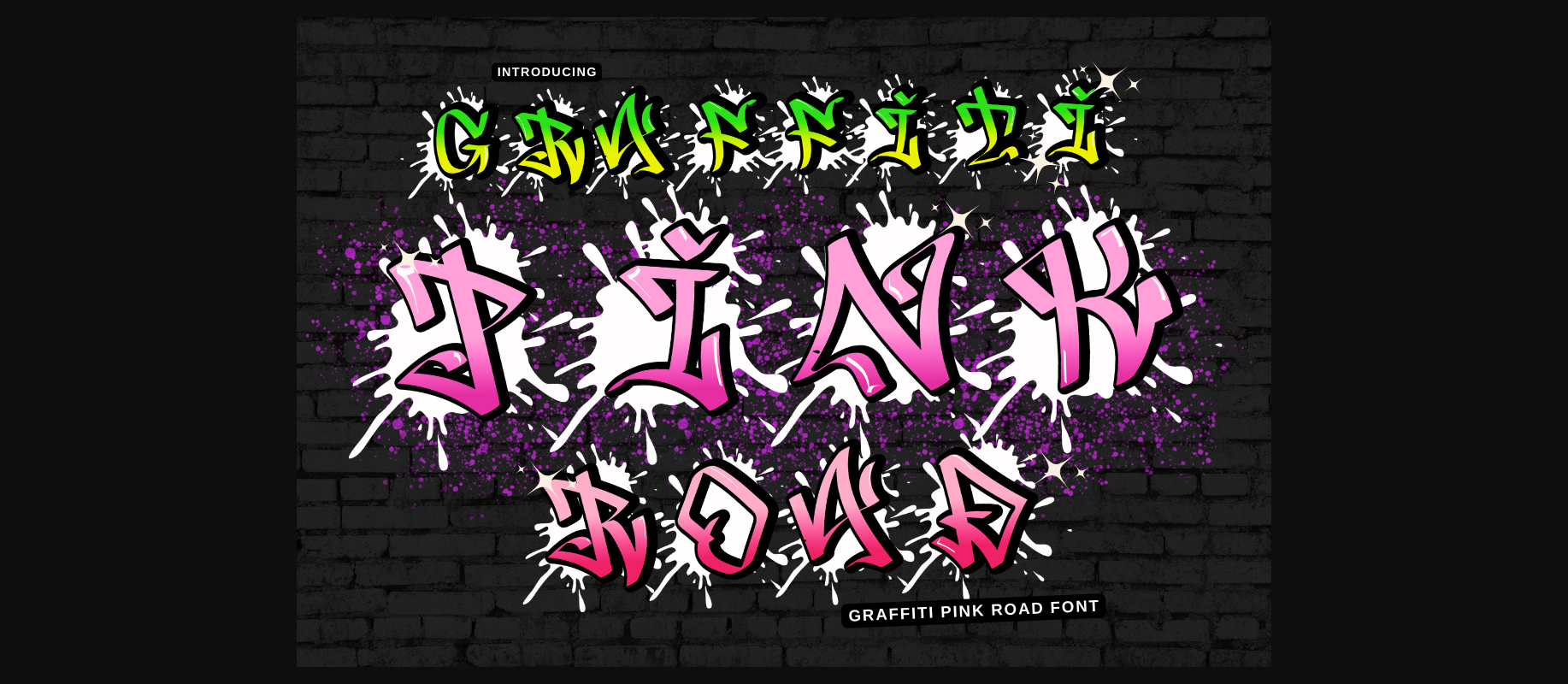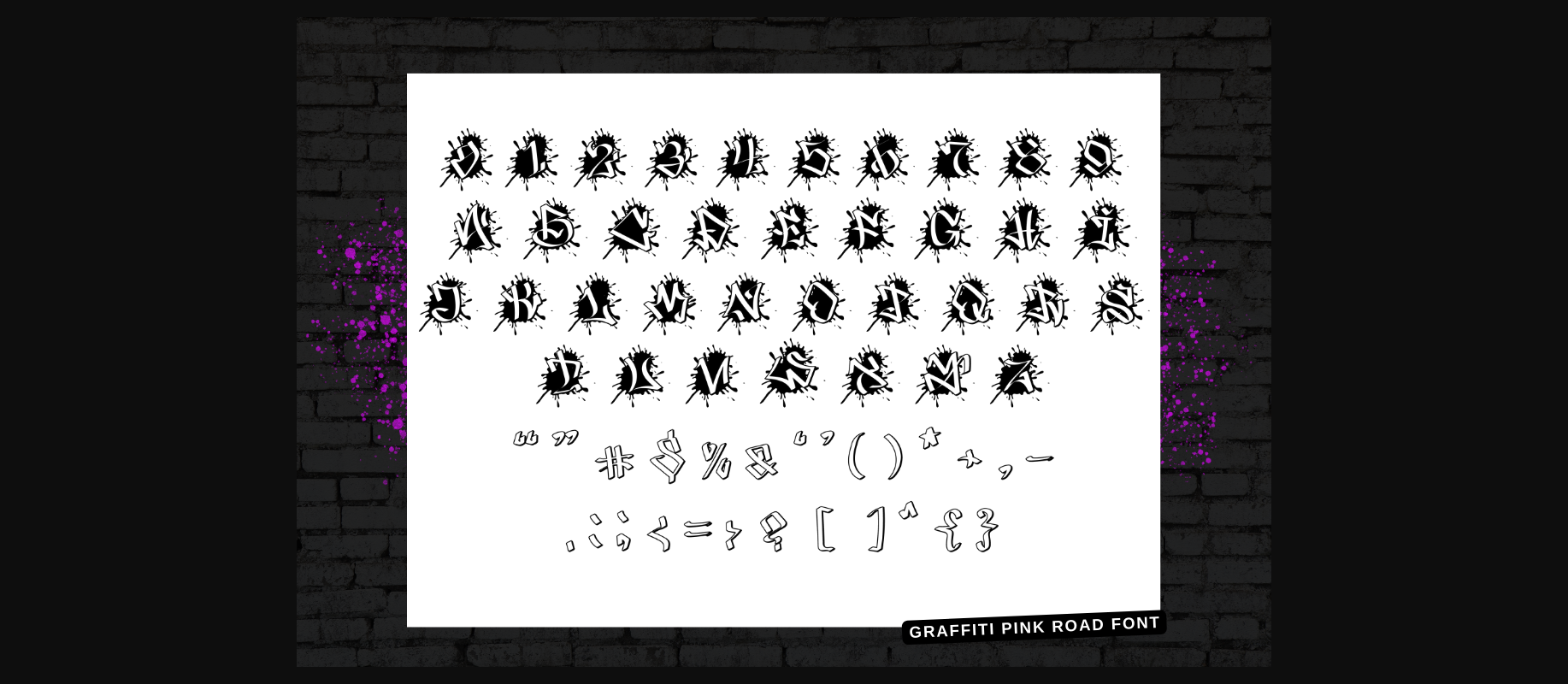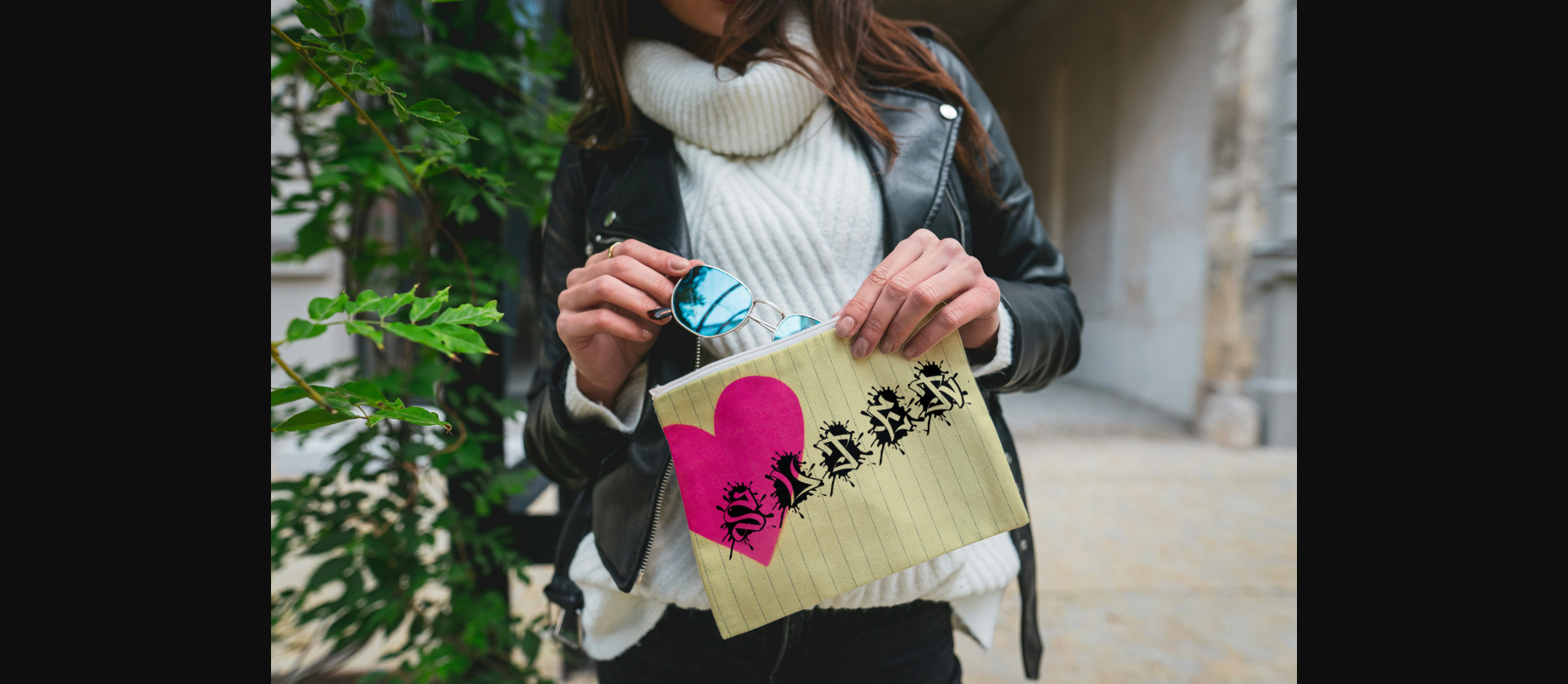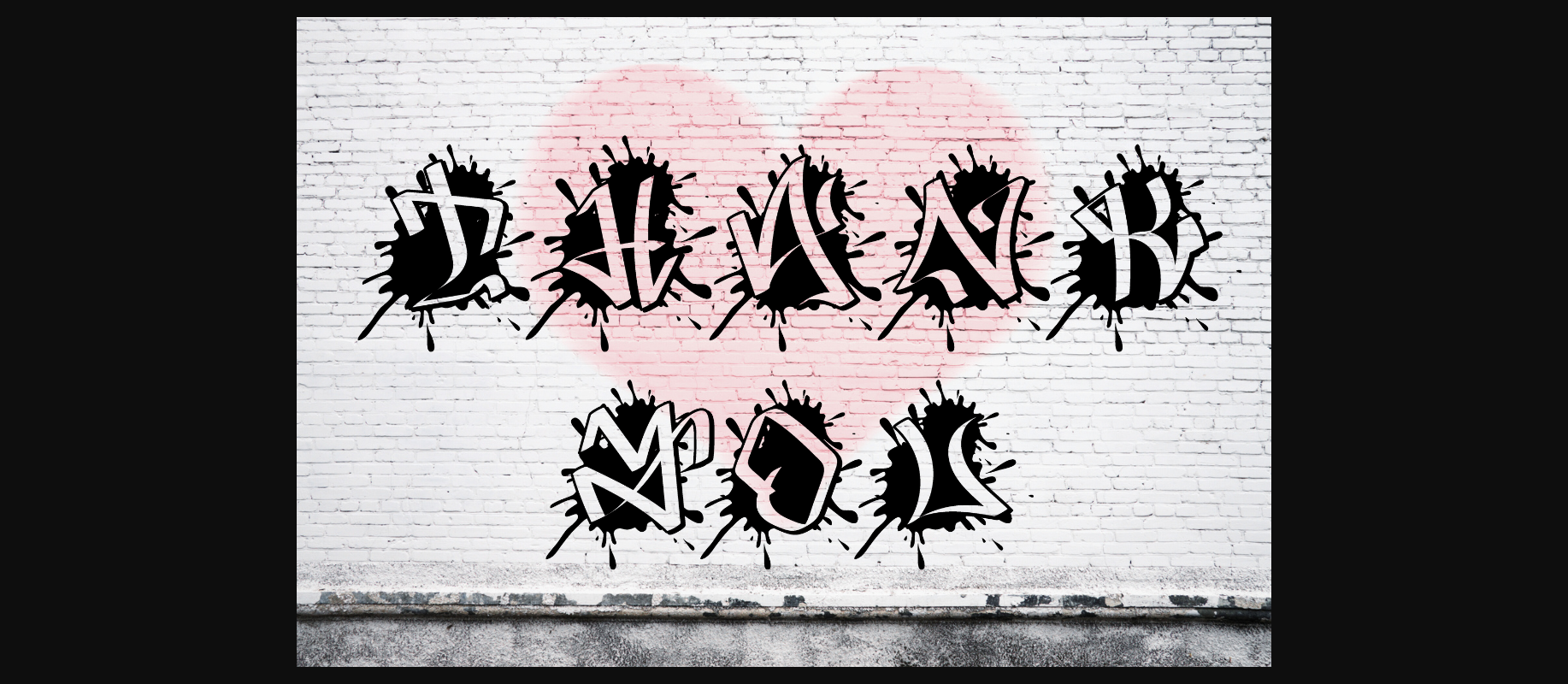
Graffiti Pink Road Font
About Graffiti Pink Road Font
Introducing the Graffiti Pink Road font—a vibrant, handcrafted typeface that embodies the essence of street art culture. With its bold alphabet designs and edgy vibe, this font is perfect for adding a splash of urban flair to any project. Whether you’re seeking inspiration for a holiday celebration or embarking on a DIY endeavor, the Graffiti Pink Road font is your versatile companion. From hand-lettering personalized messages to crafting eye-catching posters, its dynamic style brings creativity to life.
Let your imagination roam free as you explore the endless possibilities of this font. Whether you’re creating street art graphics or designing unique logos, each letter is a testament to urban expression and artistic freedom. Elevate your designs with the Graffiti Pink Road font and unleash your creativity today! ?✨